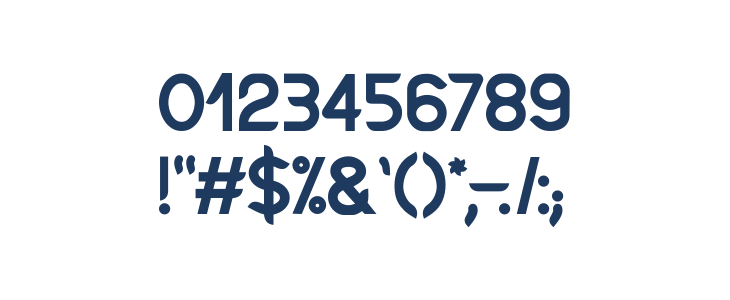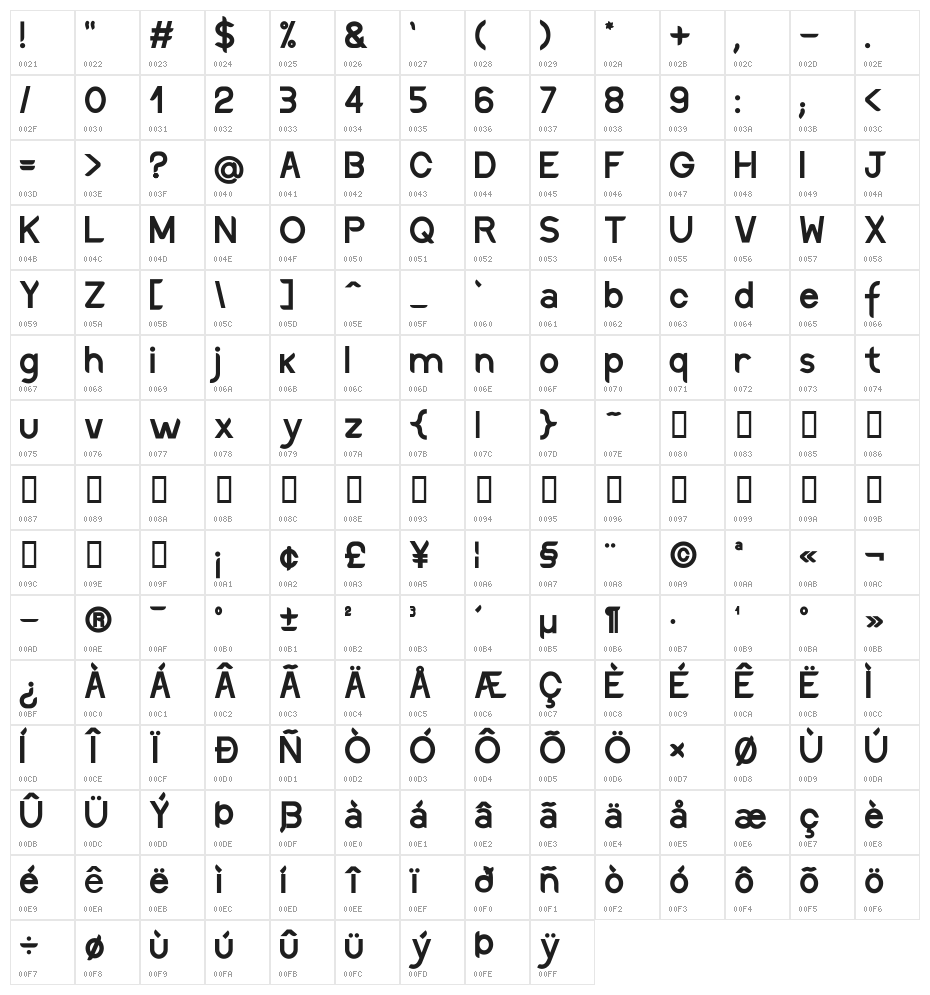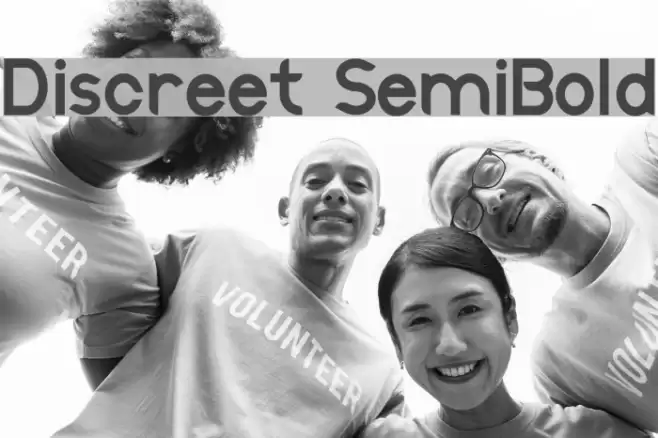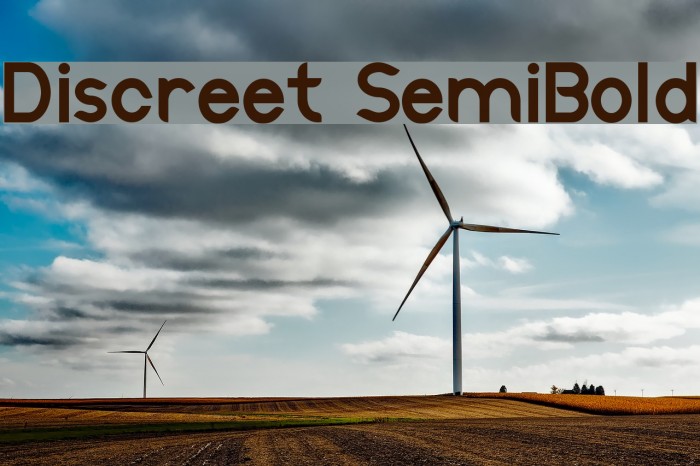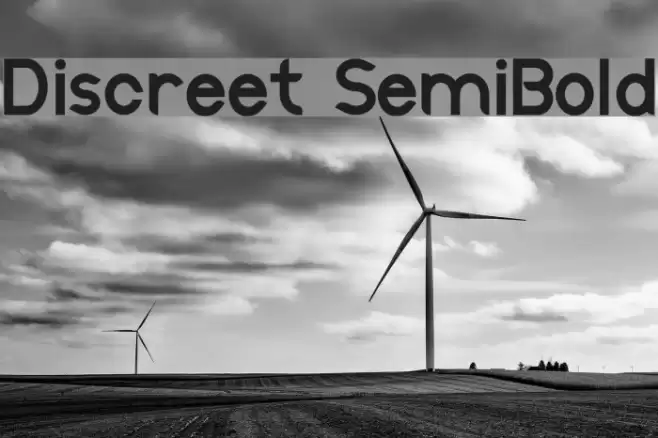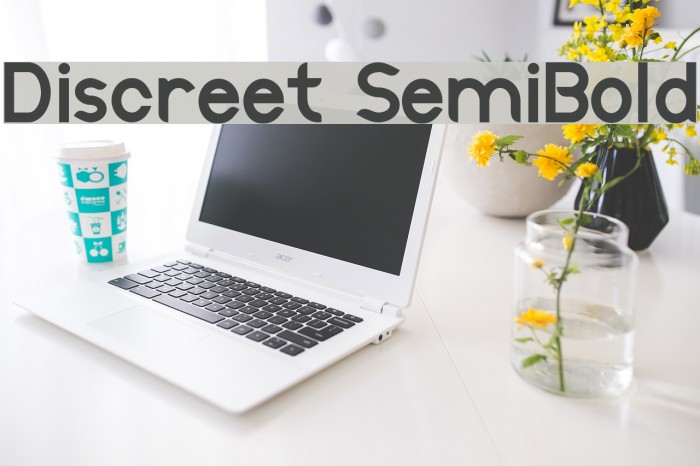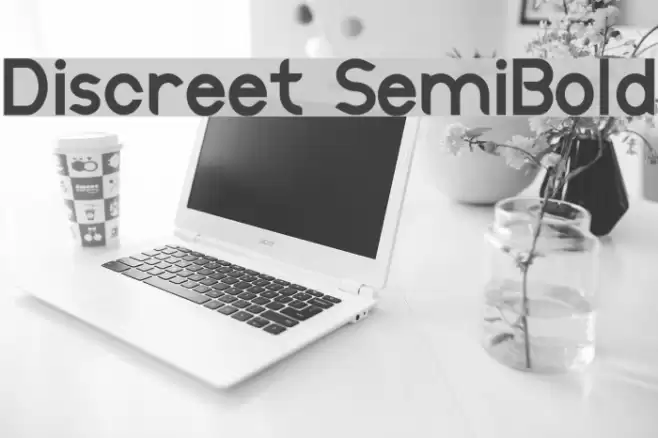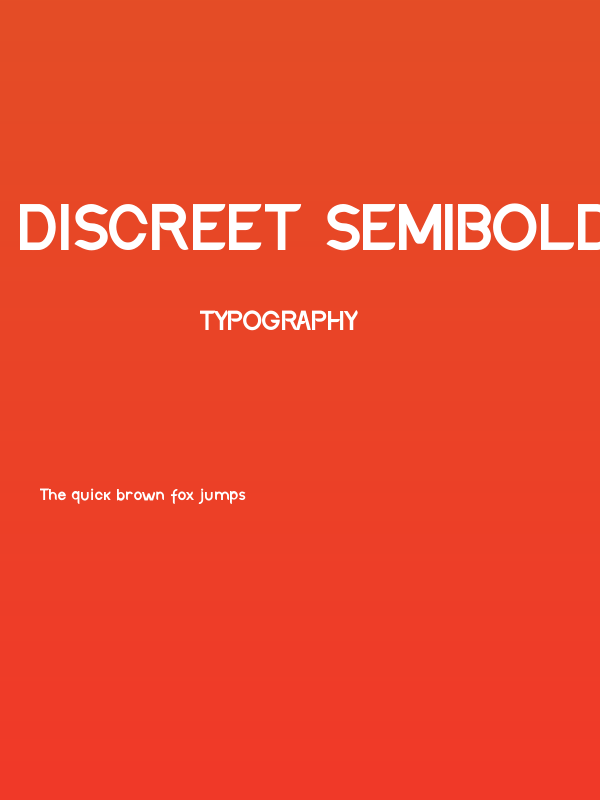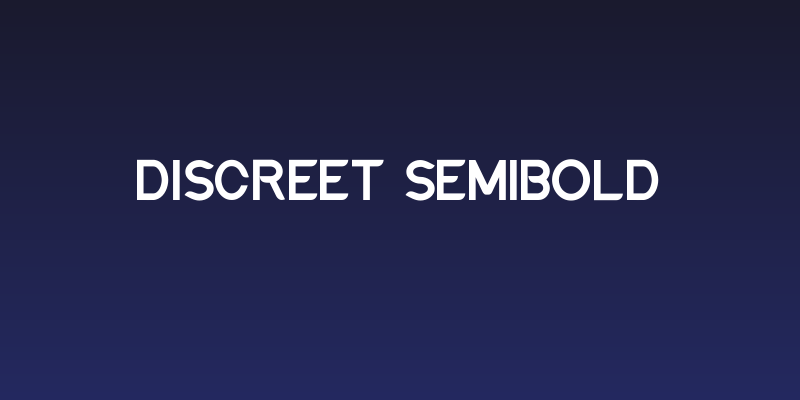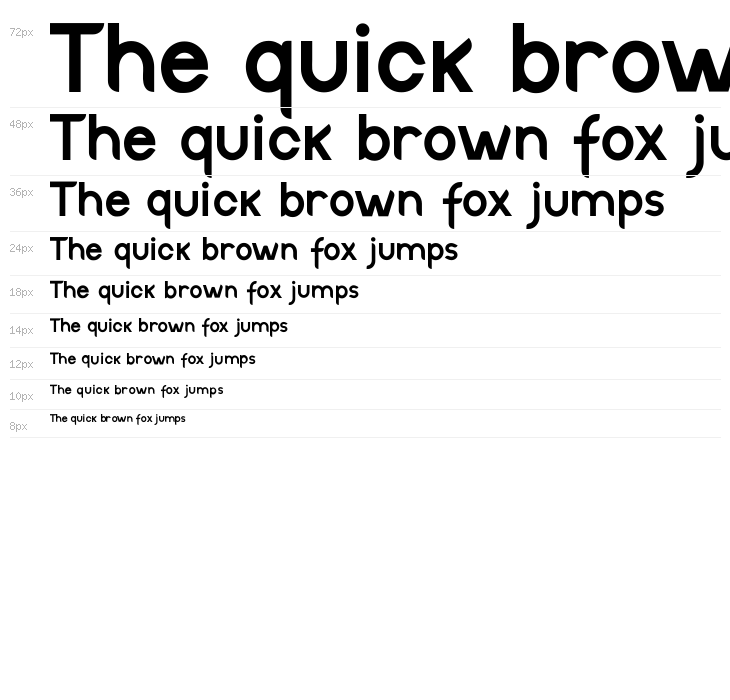
Discreet SemiBold Font
Discreet SemiBold Description
This font exhibits a clean and modern aesthetic with smooth, rounded edges and a uniform stroke width. The characters are well-balanced, providing a harmonious and approachable feel. The uppercase and lowercase letters maintain a consistent style, ensuring readability and versatility. The numerals are clear and distinct, making them suitable for a variety of applications. Special characters are thoughtfully designed, complementing the overall style. This font is ideal for projects that require a contemporary and friendly appearance, such as branding, advertising, and digital content.
| Proposed Projects | Branding, advertising, digital content, user interfaces, and packaging design. |